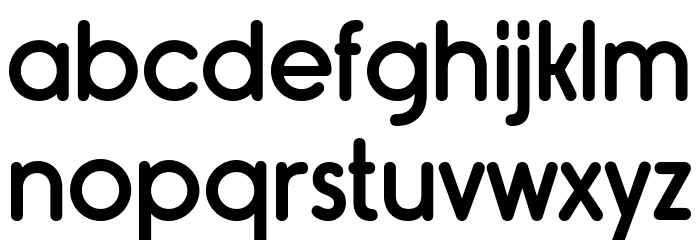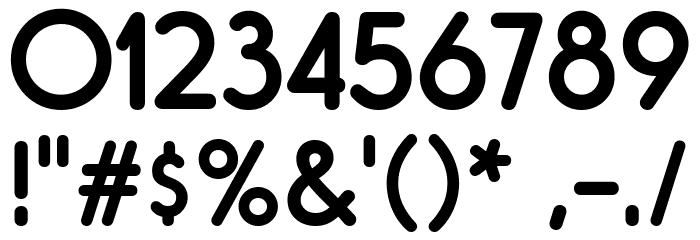
RimouskiSb-Regular Font
This font features a clean and modern sans-serif style with rounded edges, giving it a friendly and approachable appearance. The characters are evenly spaced, with a consistent stroke width that provides a harmonious and balanced look. The uppercase and lowercase letters maintain a uniform height, contributing to its readability. The numerals are clear and distinct, making them easily legible. The special characters are well-integrated, matching the overall aesthetic of the font. This typeface is versatile, suitable for both digital and print media.
A modern, rounded sans-serif font with a friendly and approachable style.
- Proposed Projects: Ideal for branding, web design, advertising, and user interfaces due to its clean and modern look.